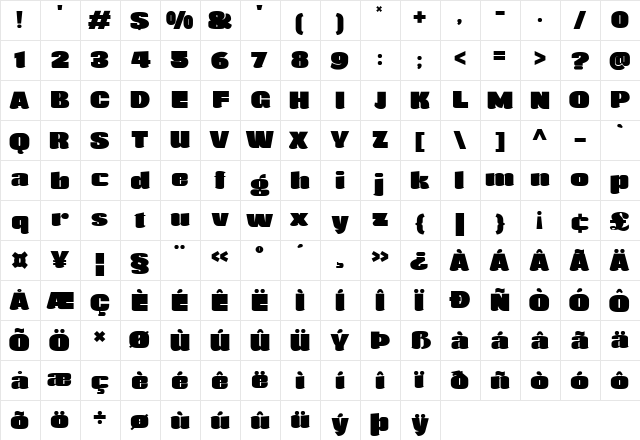
Agustina Heavy
| Foundry | Fernando Carvente |
| Designer | Fernando Carvente |
Design Context for Agustina Typeface
Agustina takes a measured approach to typography — its balanced proportions and neutral character make it a reliable workhorse for both digital and print work.